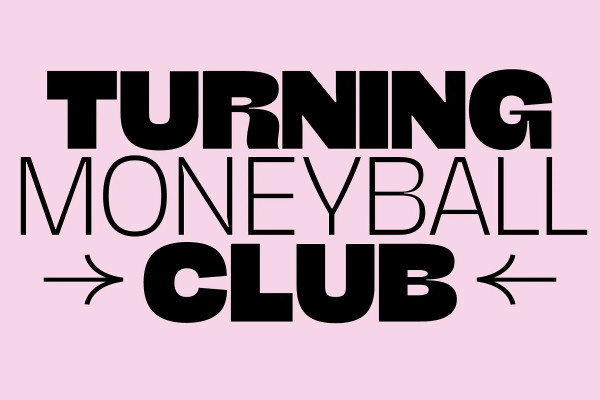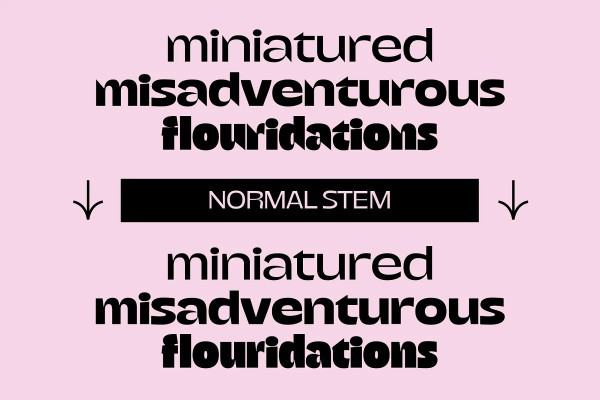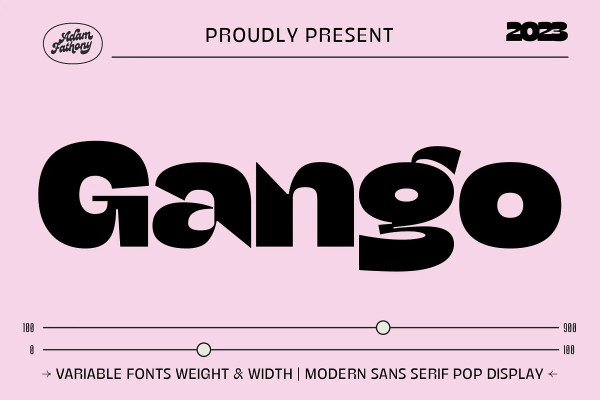
Gango Font
Gango Font, the ultimate Variable Font that combines sleek modernity with a playful pop style. This versatile typeface is designed to meet all your creative needs with its ten unique weights, ranging from the delicate Thin and Extra Light to the bold and heavy Extra Bold Heavy. Gango Font offers you complete control over your typography, allowing you to adjust the font’s weight and width seamlessly, all in one font file.
Gango style brings a clean and contemporary look to your projects, making it perfect for a wide range of design applications. Whether you’re working on branding, posters, web design, or any other creative endeavor, Gango’s pop-inspired flair will add a touch of modern sophistication and playfulness to your work.